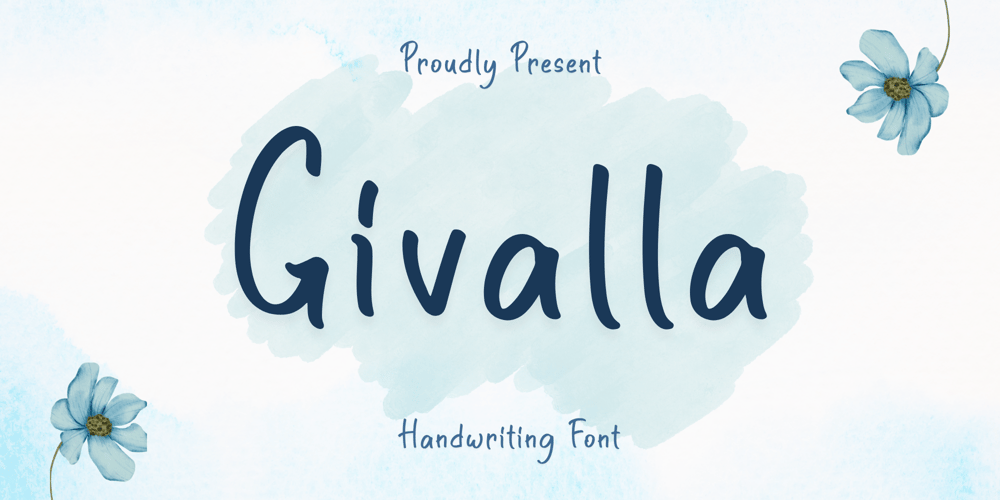
Givalla Font Family was designed by Nur Aiysah Amalia and published by Aisyah. Givalla contains 1 styles and family package options. Givalla Handwriting Font is a stylish and unique font that emulates the charm and creativity of handwritten text. With its fluid strokes and playful design, this font adds a touch of casual and character to any text or design project. Whether you’re creating invitations, posters, or digital artwork, this font will make your text stand out and capture attention. Its distinctive style brings a sense of coolness and artistic flair, making it a perfect choice for those seeking a trendy and eye-catching handwriting font.